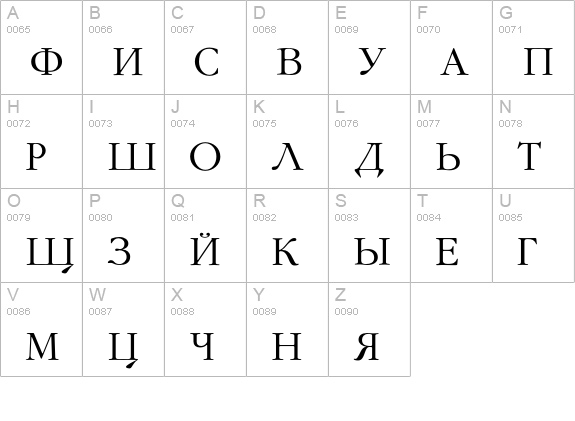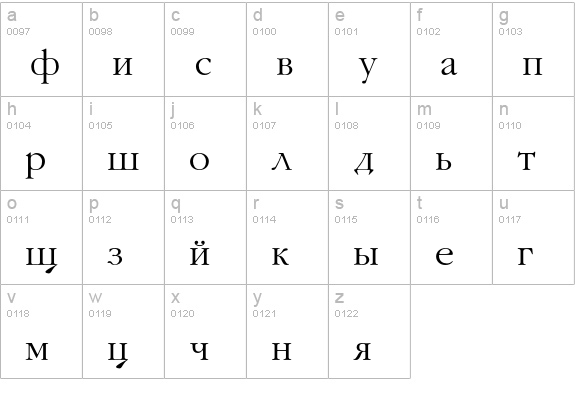
GaramondFLFCyrillic Font Details
GaramondFLFCyrillic font is a stunning typeface that effortlessly combines timeless elegance with a touch of modern sophistication. This font is a perfect choice for those seeking a classic yet refined look for their designs. With its graceful letterforms and delicate strokes, GaramondFLFCyrillic exudes a sense of grace and poise that will add a touch of sophistication to any project. This beautiful font is not only visually appealing but also highly versatile, making it suitable for a wide range of design applications. From elegant wedding invitations to eye-catching logos and professional business cards, GaramondFLFCyrillic font will elevate your designs to new heights of elegance and professionalism. One of the most enticing aspects of GaramondFLFCyrillic font is that it is available for free download at FontsMarket.com. This means that you can enjoy the beauty and versatility of this font without any financial burden. Whether you are a professional designer or a passionate hobbyist, this font offers you the opportunity to create stunning designs without any limitations. So why wait? Enhance your designs with the timeless beauty of GaramondFLFCyrillic font, and let your creativity soar. Download this font today at FontsMarket.com and bring a touch of elegance to your next project.